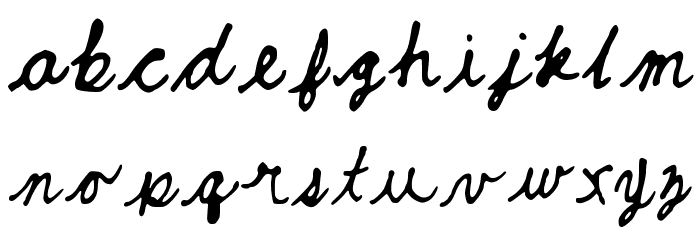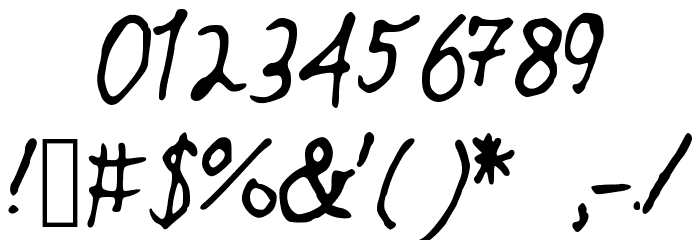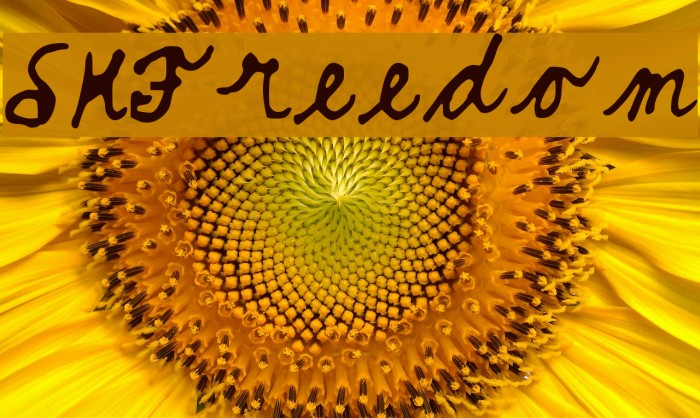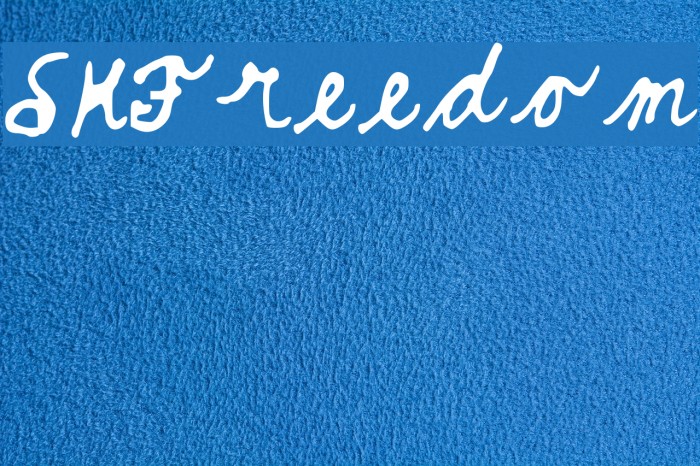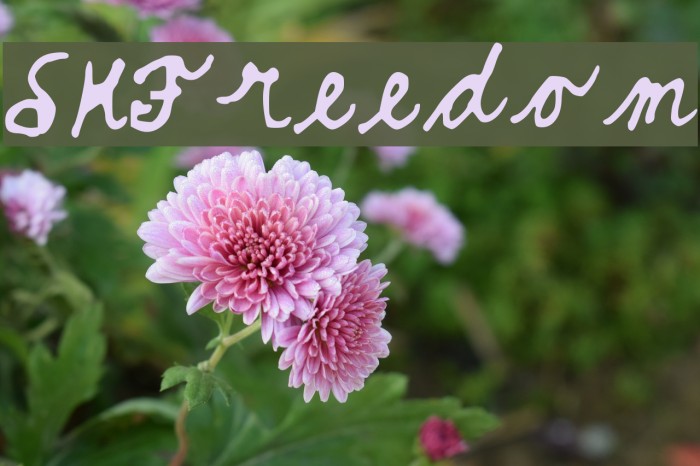
SKFreedom Font
This font exhibits a lively and dynamic handwritten style, characterized by its fluid and cursive letterforms. The strokes are bold and expressive, with a playful yet elegant appearance. Each character is distinct, with a slight slant that adds to the overall movement and energy of the text. The uppercase letters are particularly ornate, featuring loops and swirls that enhance their decorative quality. The lowercase letters maintain a consistent flow, making them easy to read while retaining the font's unique personality. Numbers and special characters are designed to match the overall style, ensuring a cohesive look across all text elements.
A bold, cursive handwritten font with expressive and dynamic strokes.